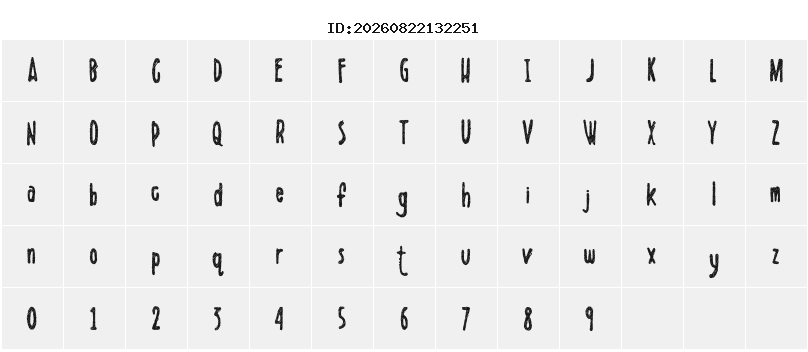
Scribblet Demo Preview
• Font Name: Scribblet Demo
• Full Font Name: Scribblet Demo
• Designer: Dirt2.com
• Description: v1 by Andrew Hart - Dirt2.com / SickCapital.com - July 28, 2014
About Scribblet Demo.ttf
Scribblet Demo.ttf is a modern, elegant sans-serif font designed for ultimate readability and visual harmony. Perfect for branding, headlines, web design, and print materials.